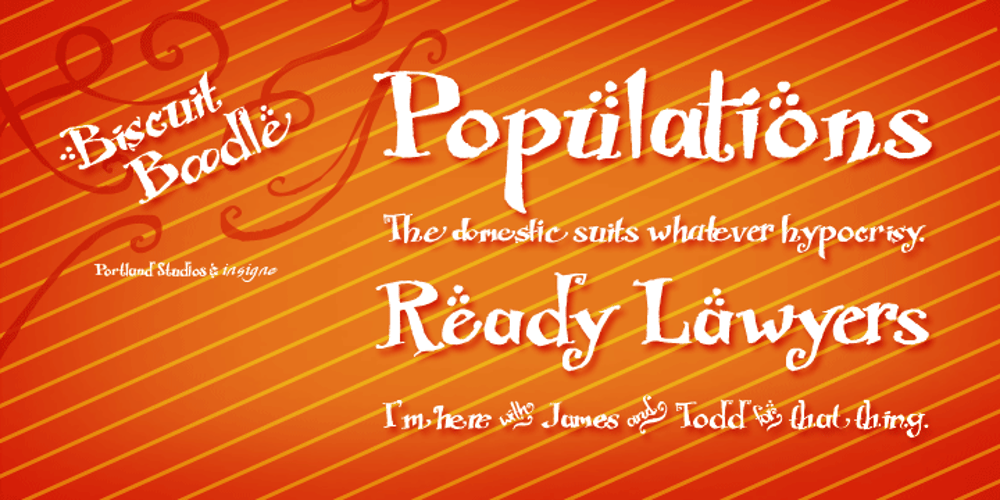
Biscuit Boodle Font Family was designed by Jeremy Dooley and published by insigne. Biscuit Boodle contains 2 styles and family package options. Biscuit Boodle is a fun and uplifting script from Portland Studios Illustrator Justin Gerard. The characters are brush drawn with a slight texture. The font comes packed with OpenType alternates and ligatures. Included are small caps, old style figures, titling alternates and ending swashes. Sixty-four optional ligatures add a slapdash quality to your copy and make sure that no two letters in a word are alike, and auto replacing word ligatures add to the fun. The Biscuit Boodle family also includes an even more spontaneous alternate and even ornaments for even more creative options.